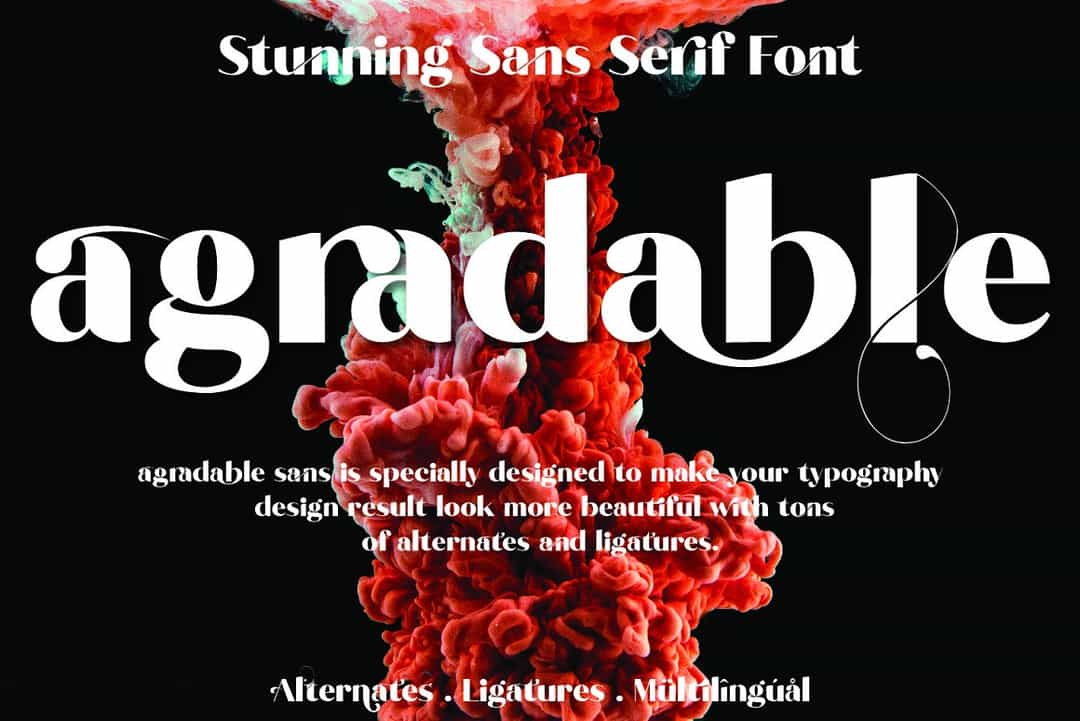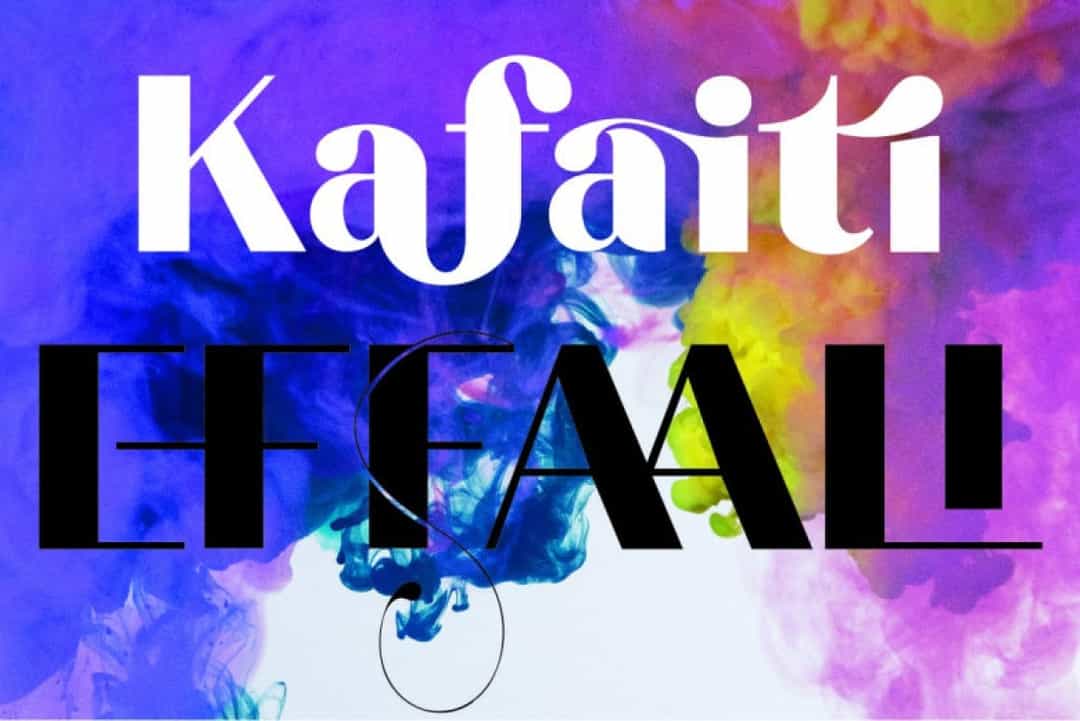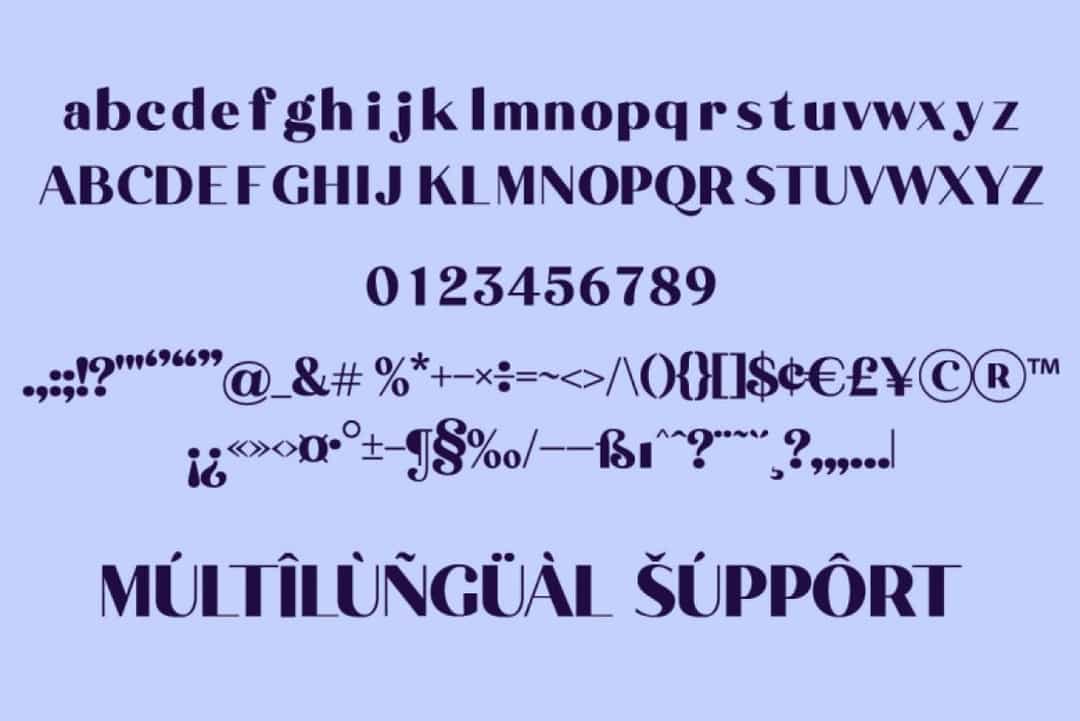
Agradable is an Awsome Stylistic Sans Serif typeface designed for branding purposes and featuring additional ligatures and unique characters to boost its value and give a brand more distinctiveness. Perfect for designer/owner of product looking to upgrade their appearance in modern and trendy way!